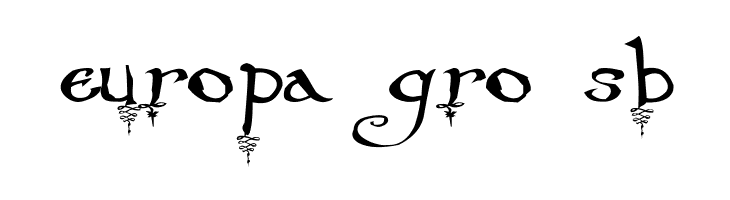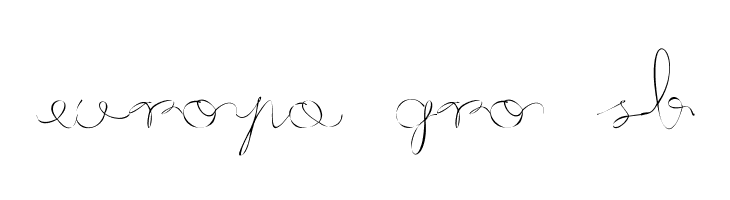
A classic, elegant font with a modern twist and moderate contrast.
Intricate butterfly and caterpillar dingbats for decorative use.
A whimsical and ornate font with mystical embellishments and dynamic contrast.
An elegant, cursive font with intricate loops and swirls.
A graceful script font with fluid, cursive strokes and a modern calligraphic style.
An elegant script font with intricate swashes and flowing lines.
An elegant, cursive script font with flowing, interconnected characters.
An elegant, cursive script font with flowing, decorative characters.
An elegant script font with fluid, cursive strokes and sophisticated design.
A thin, elegant font with a modern and sophisticated style.